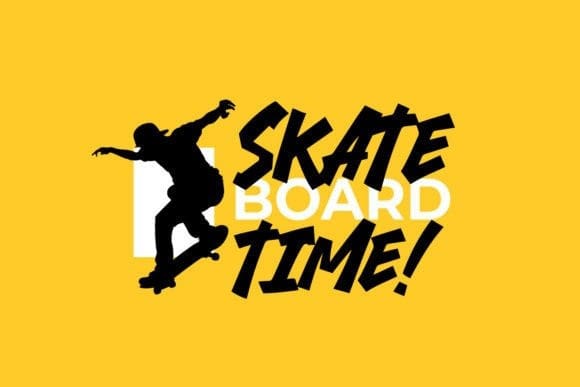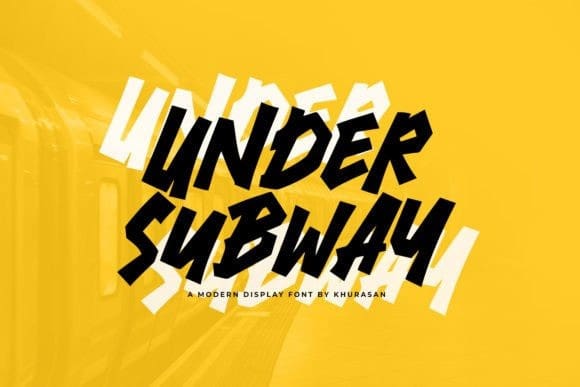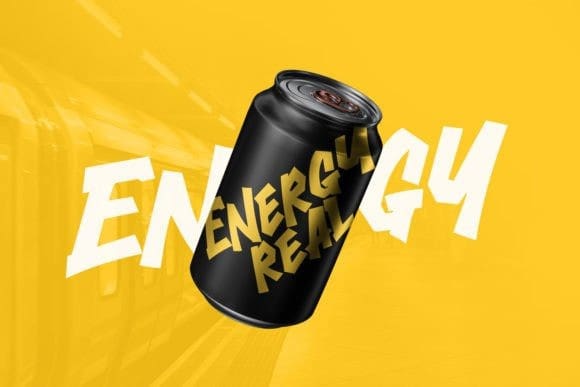
Under Subway Font
Under Subway Font is a modern bold display font perfect for posters, logos, magazines, book covers, banners, and many more! Get this quirky handwritten font, and use it to create lovely designs! It can easily be matched to an incredibly large set of projects, so add it to your creative ideas and notice how it makes them stand out!